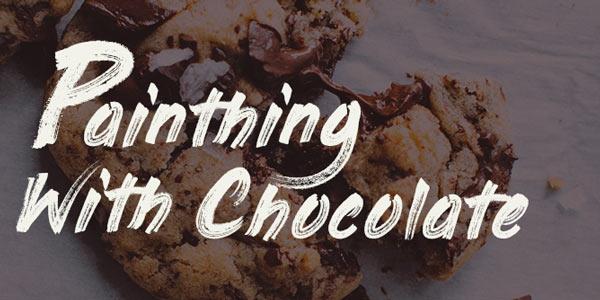
Free Painting With Chocolate Font
Download and enjoy this free painting with chocolate font. Cool typeface to showcase your designs in a modern way. Font Space has created this amazing and beautiful free typeface. Showcase your designs like a graphic design pro by adding a new touch with this fancy font.